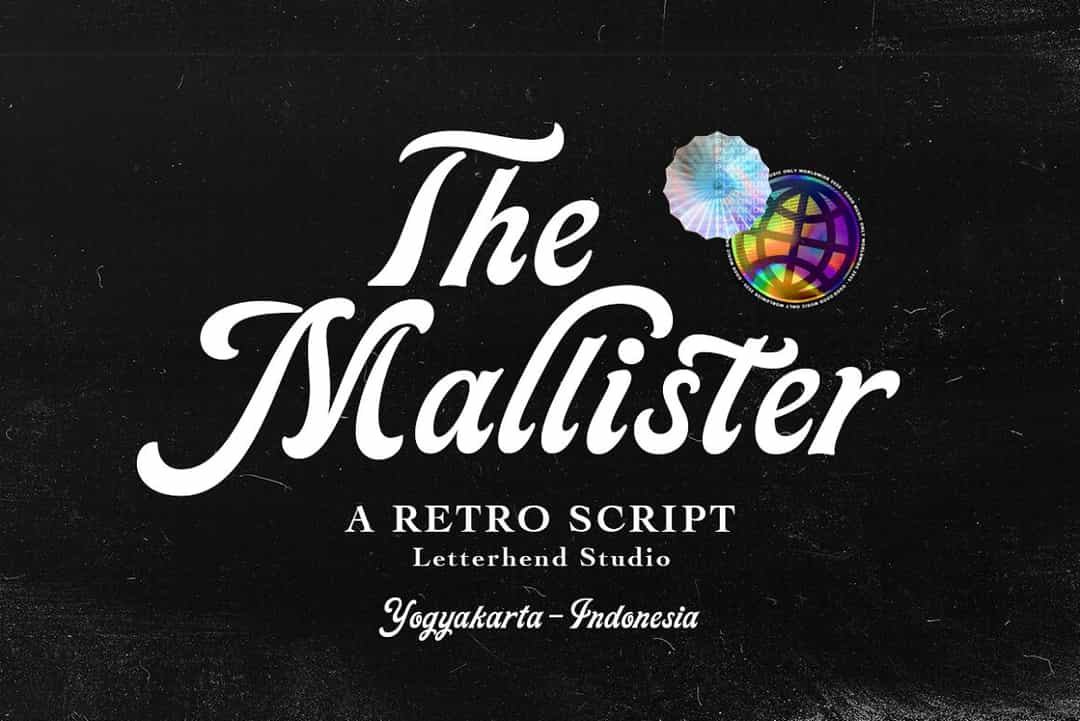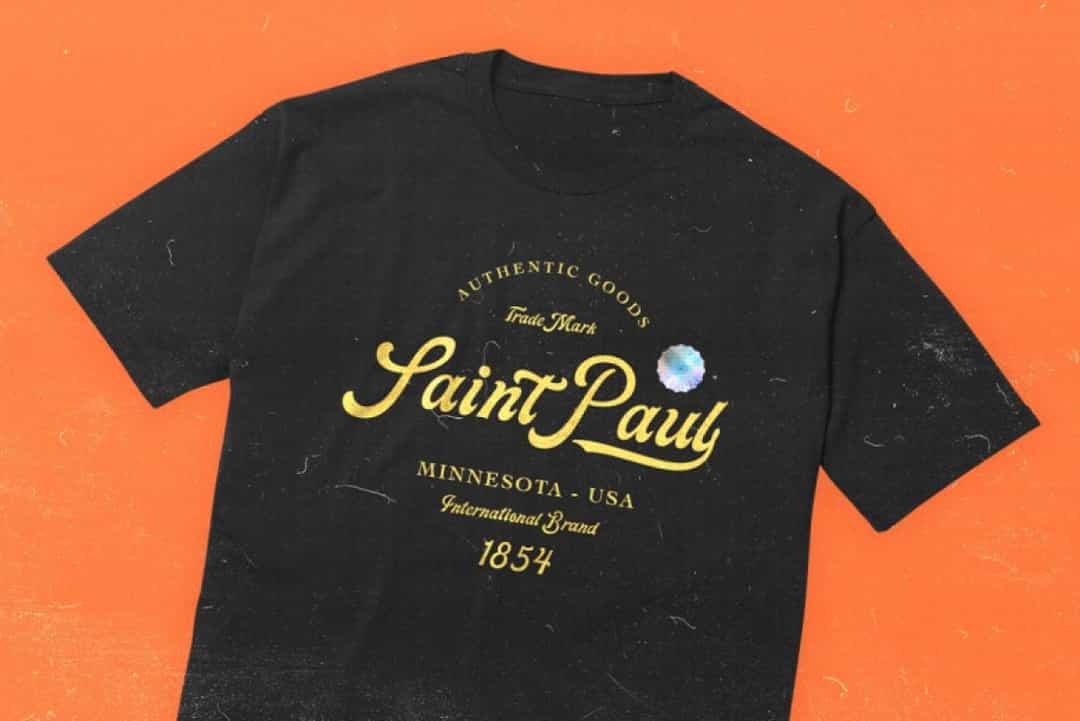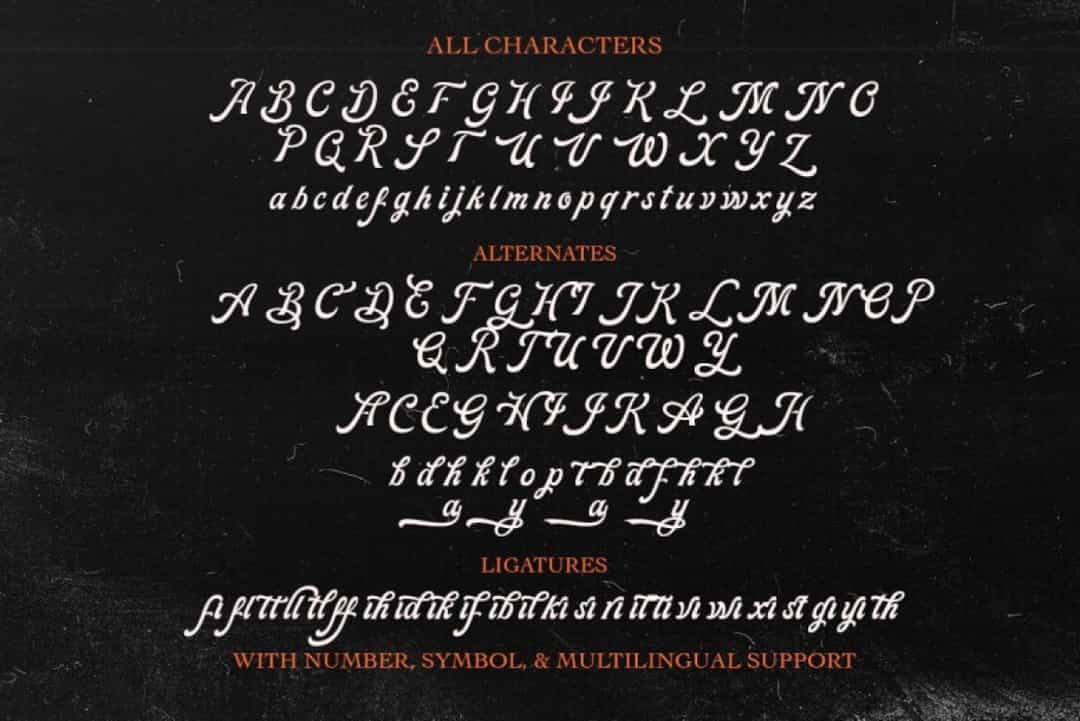
Discover The Mallister Font, part of the Retro Script collection—a versatile and unique font perfect for adding a personal touch to your projects. Download it for free and enjoy crafting designs with style, from invitations to social media posts. This font is available exclusively for personal use, giving you the freedom to create without limits. Unlock your creativity with The Mallister Font today!
The Mallister is a script font with a touch of vintage look and feel. This type of font perfectly made to be applied especially in logo, headline, signage and the other various formal forms such as invitations, labels, logos, magazines, books, greeting / wedding cards, packaging, fashion, make up, stationery, novels, labels or any type of advertising purpose.